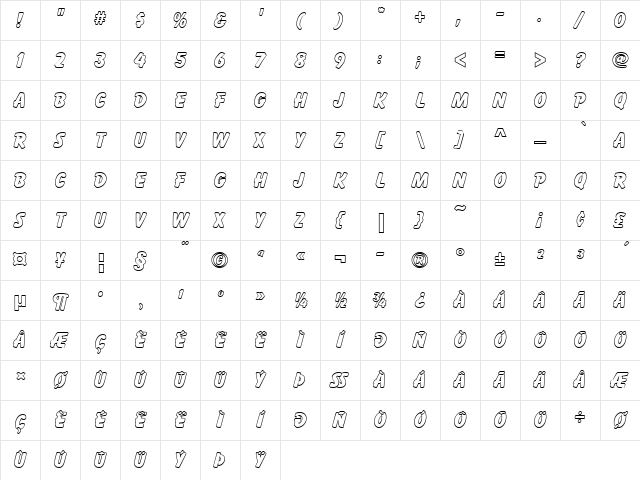
Balloon Becker Outline Ext Bold Regular Free Font
Balloon Becker Outline Ext Bold Regular
Design Context for Balloon Becker Outline Ext Bold
Balloon Becker Outline Ext Bold is built around its visual character rather than neutral utility - its distinctive forms are designed to make an impression at display sizes. Its bold stroke weight gives it real presence on the page.
Font Pairing: Pair with a clean neutral sans-serif for body copy to let Balloon Becker Outline Ext Bold's character lead without overwhelming the composition.
Pro Tip: Use Balloon Becker Outline Ext Bold exclusively at display sizes - it was designed to be seen, not read at length. Let a neutral companion handle body copy.